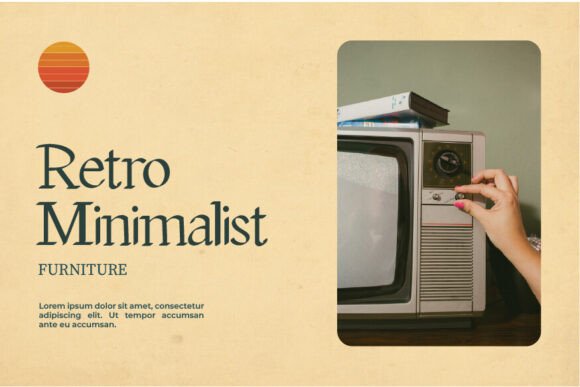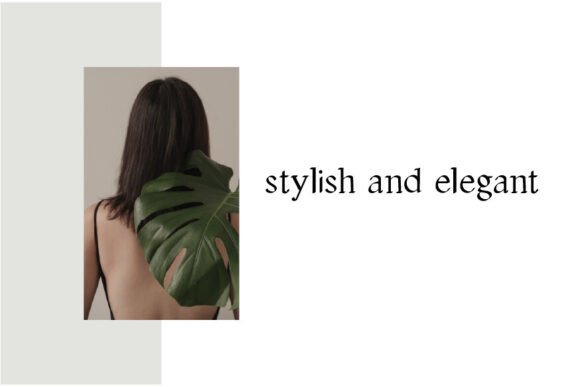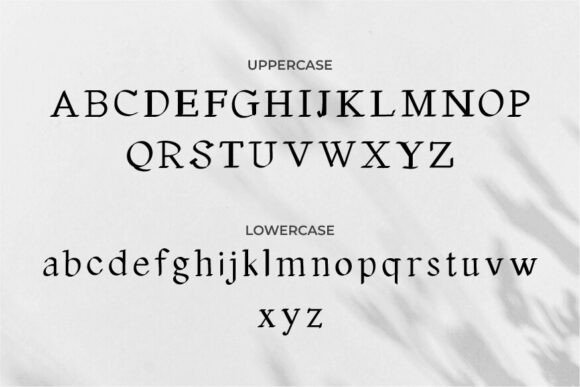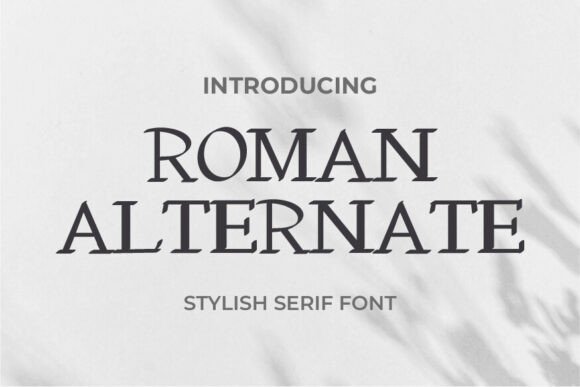
Introduction to Roman Alternate Font
Roman Alternate is a refined and elegant serif typeface that brings a touch of sophistication to any design.
With a classic Roman-inspired structure and stylish alternates, this font offers a perfect blend of tradition and modernity Each letter is meticulously crafted to ensure high readability while maintaining a distinctive artistic flair.
Key Features of Roman Alternate Font
Why Choose Roman Alternate Font?